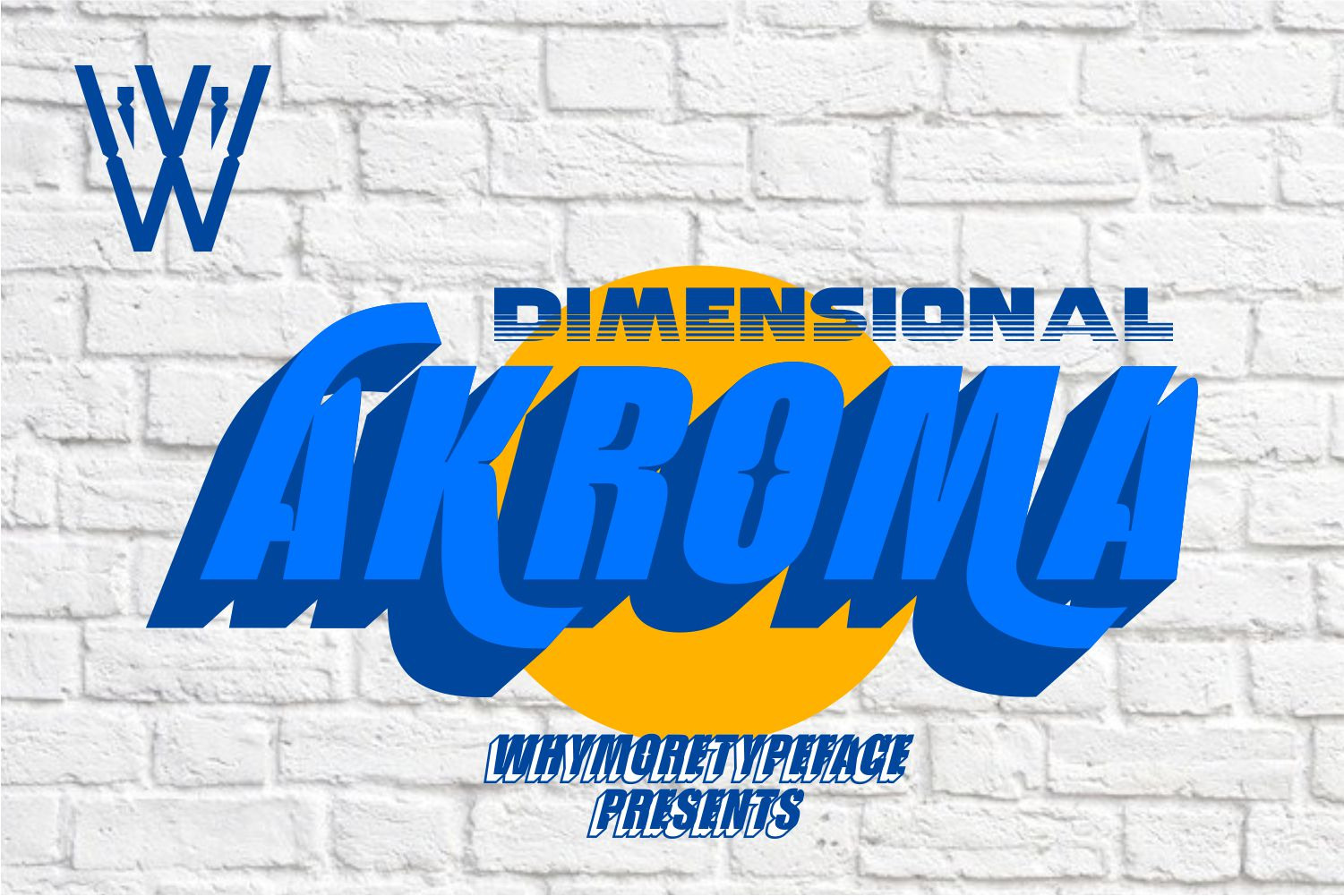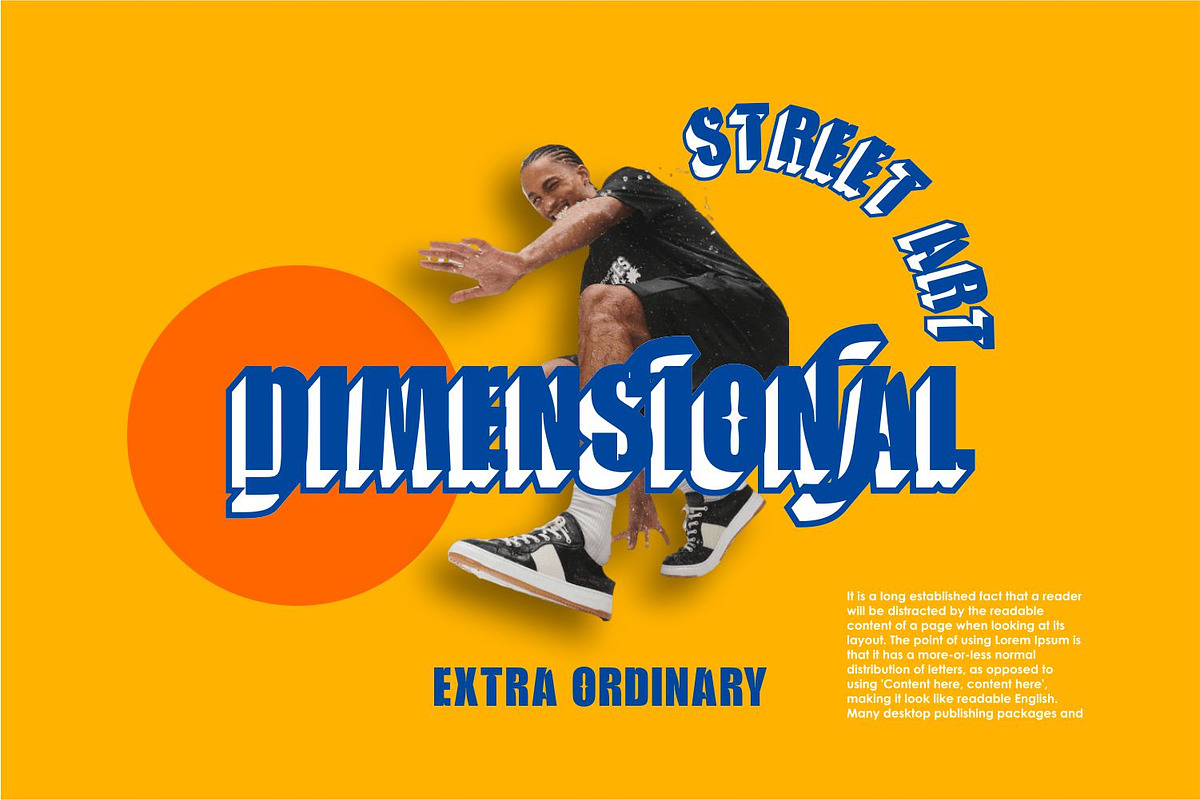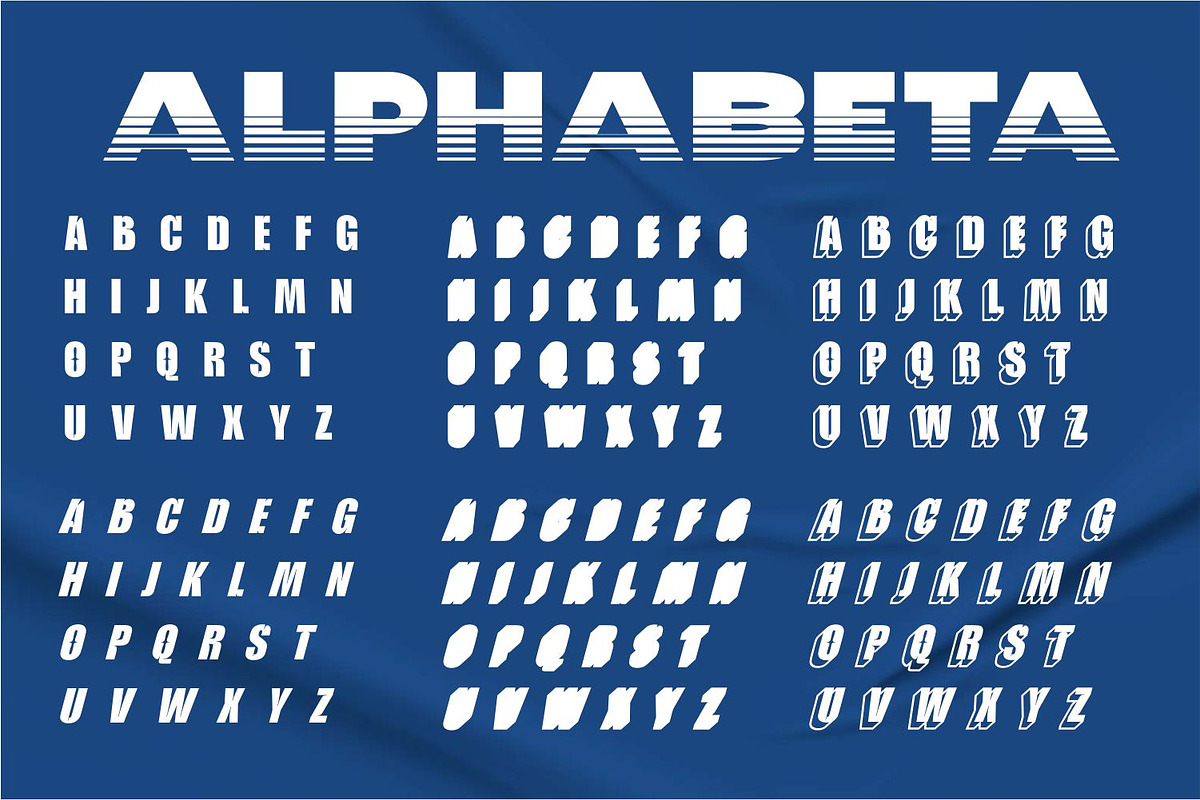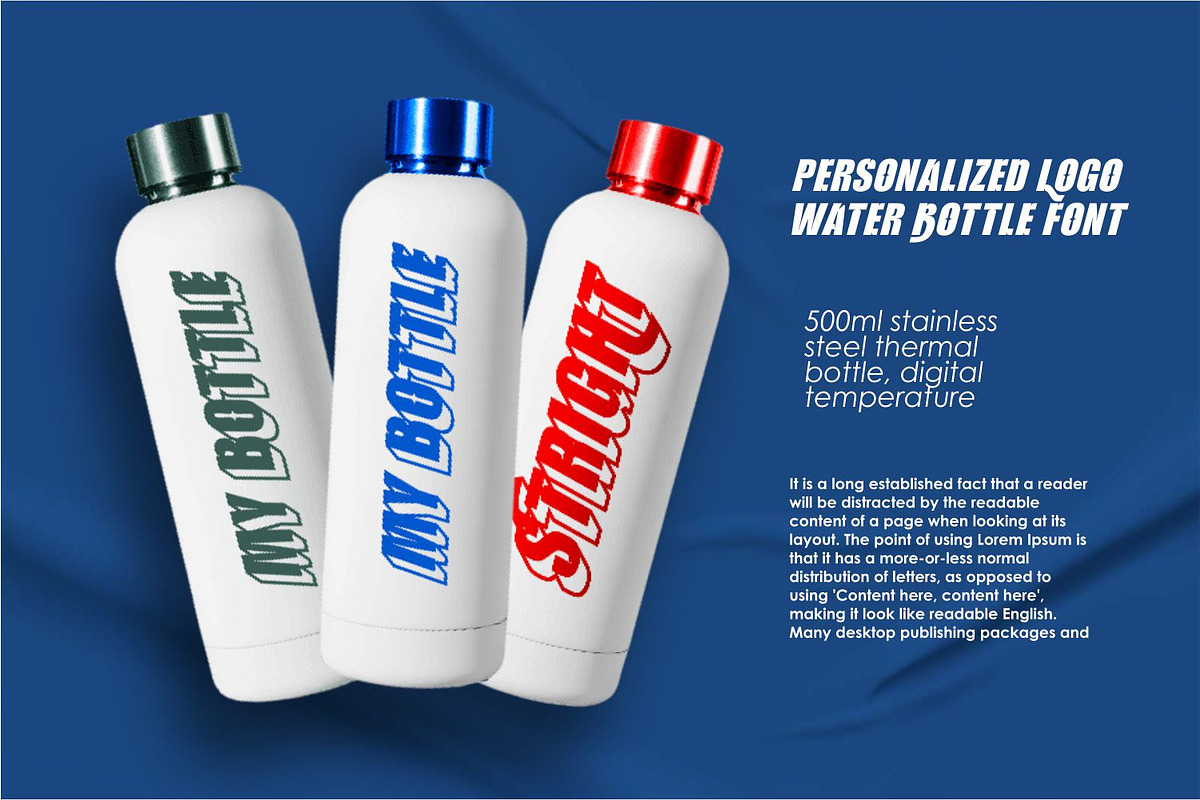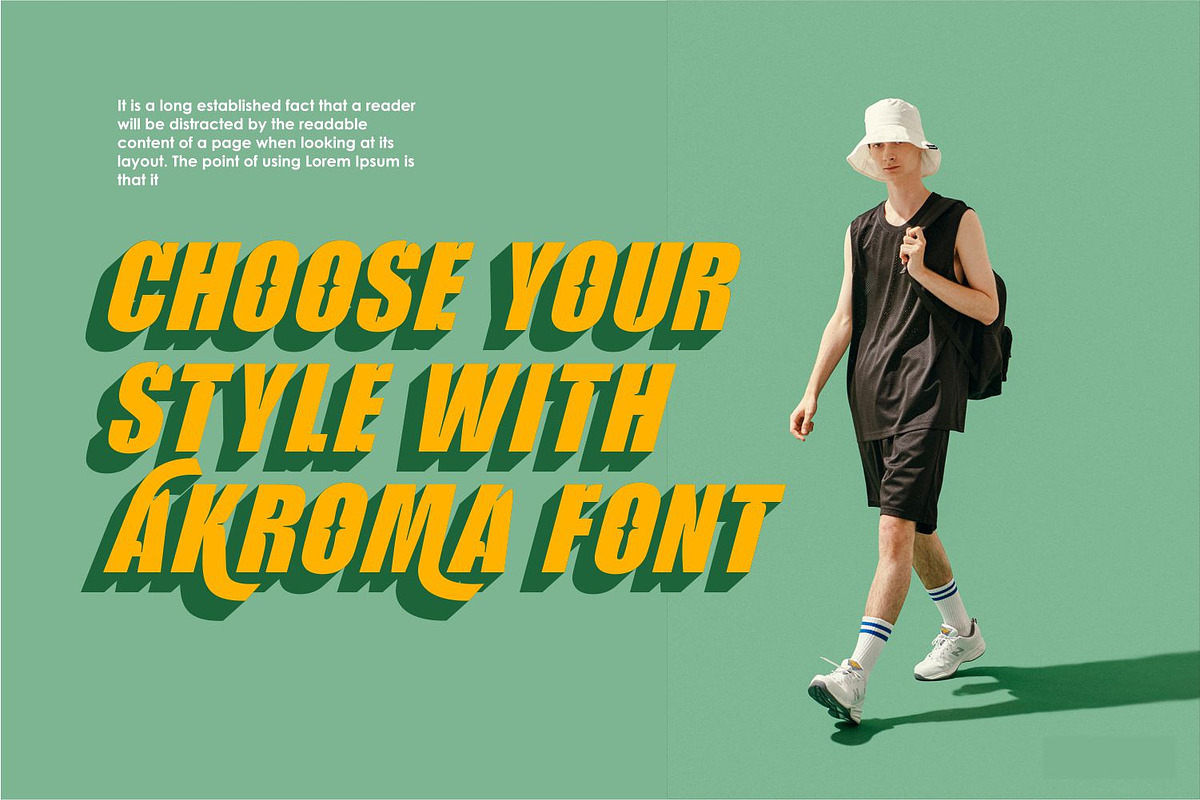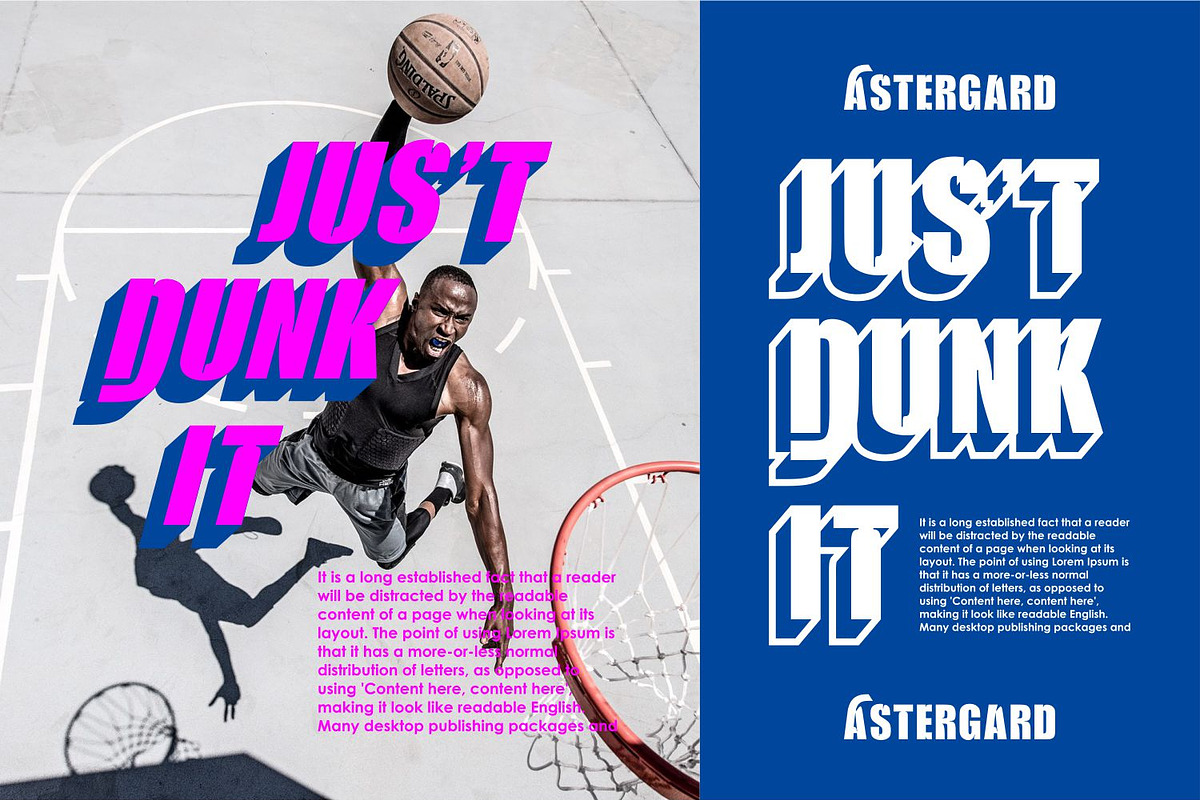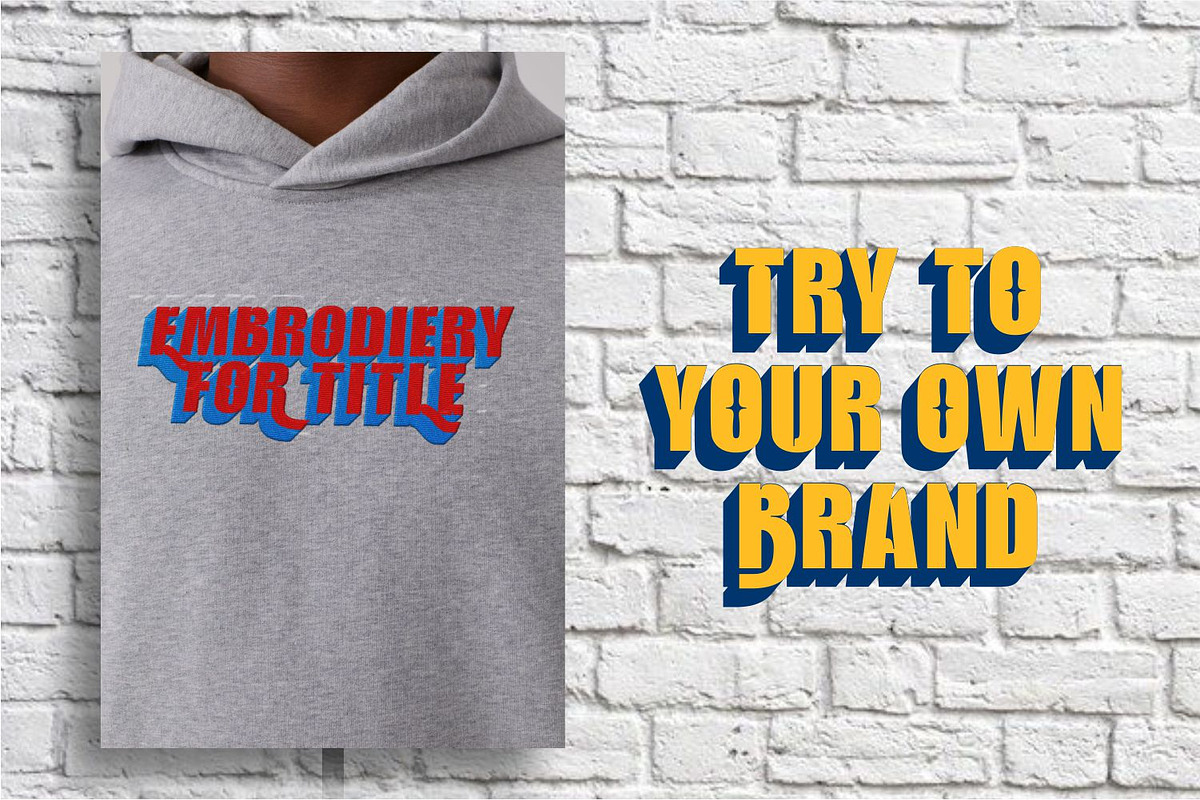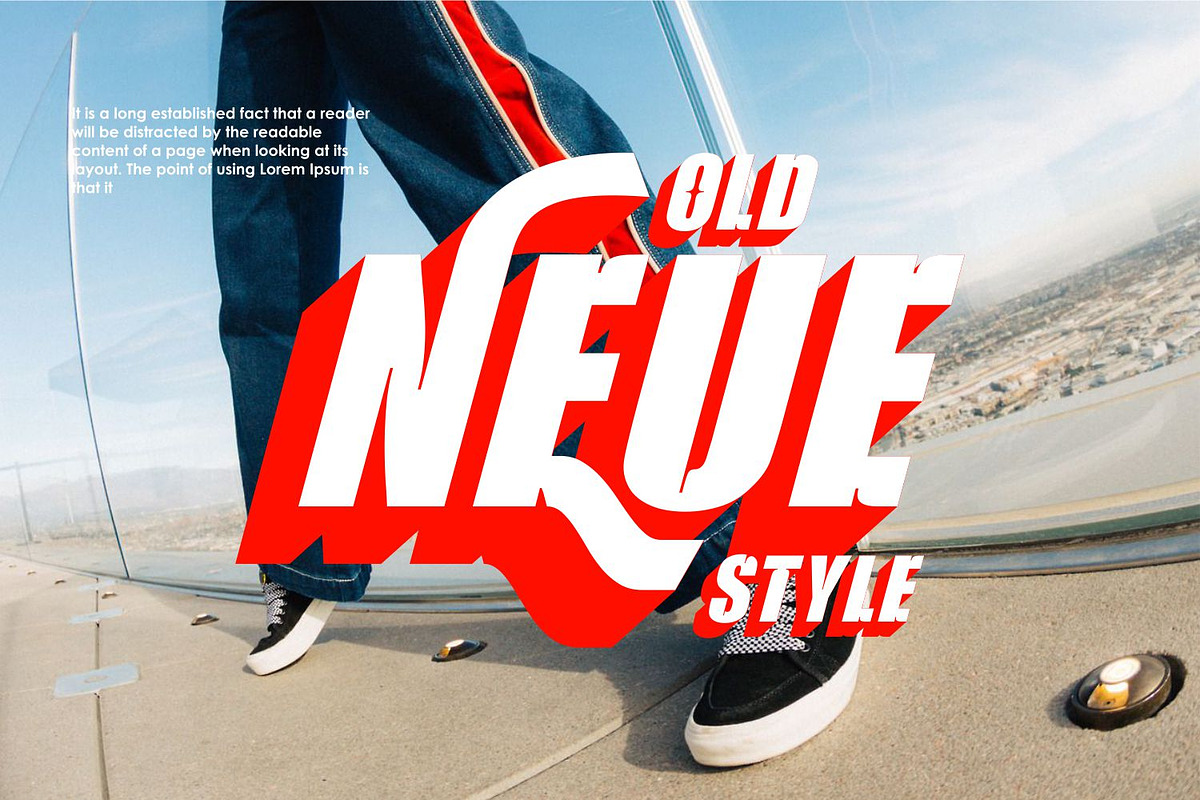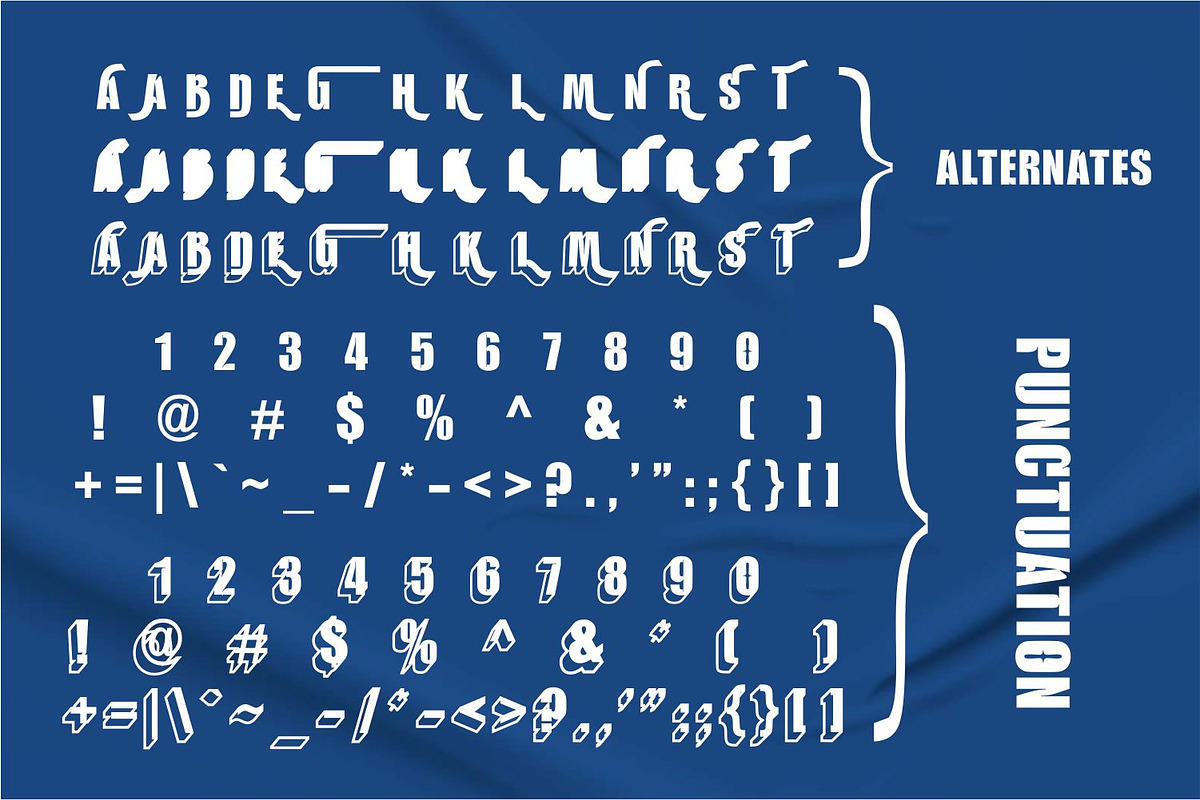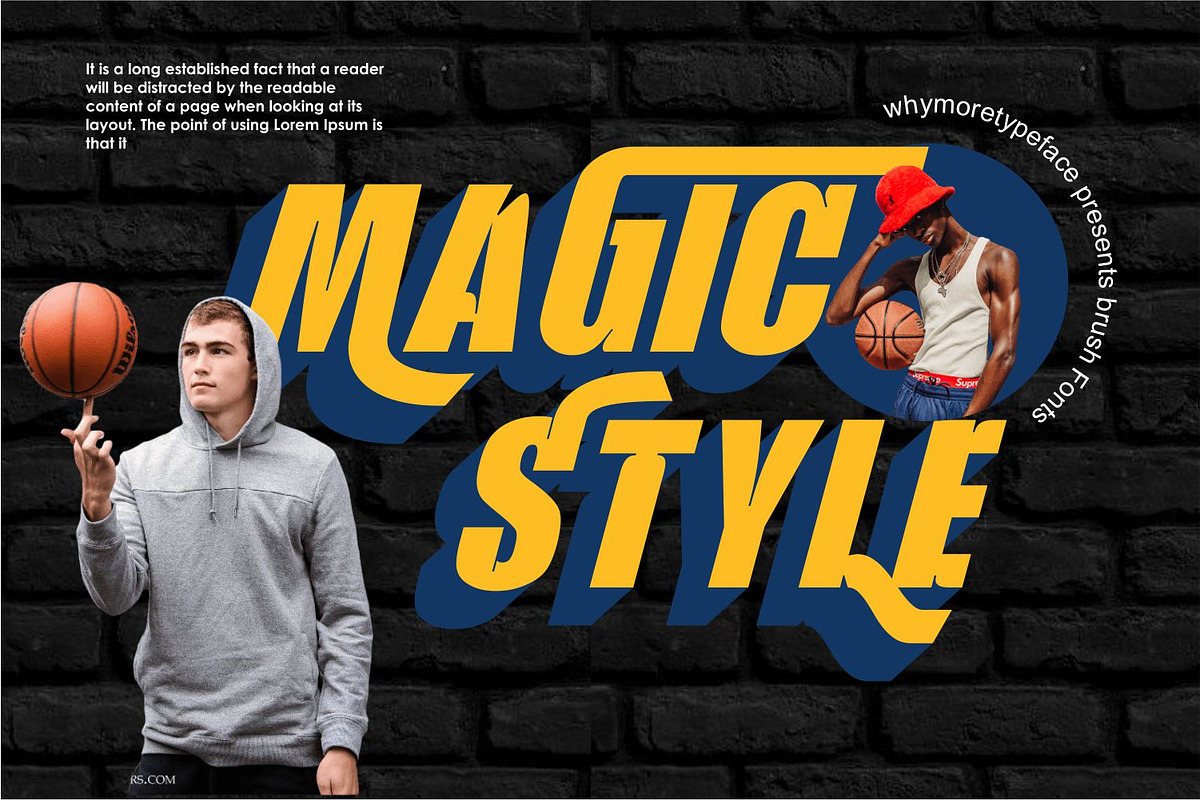
Akroma Font Display Sporty Font
The Akroma Font is a dynamic and sporty typeface that exudes energy and athleticism with its bold and impactful design. Inspired by the world of sports, this font features sharp angles, strong lines, and a sense of movement that captures the essence of competition and action. Whether you’re designing team logos, sports jerseys, or event posters, the Akroma Font adds a bold and commanding presence that demands attention. Its versatility and boldness make it perfect for conveying the spirit of athleticism and excitement in your designs.